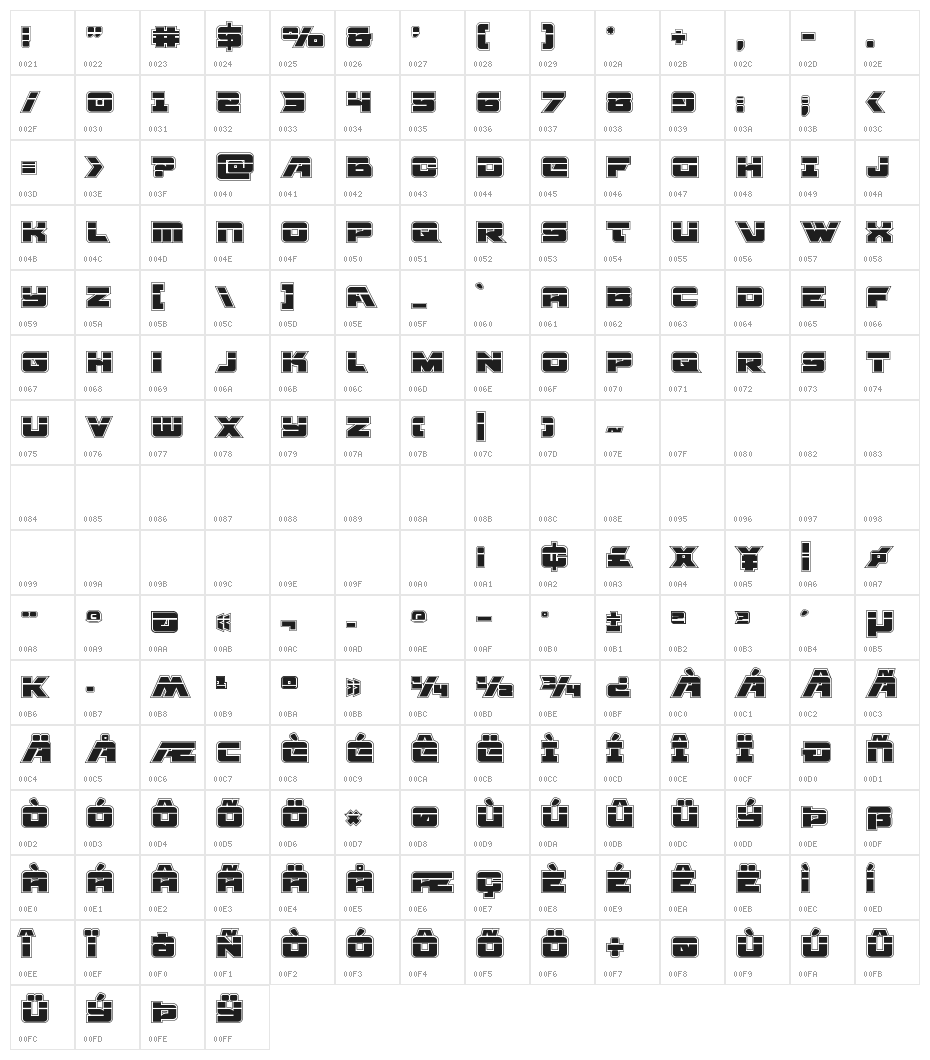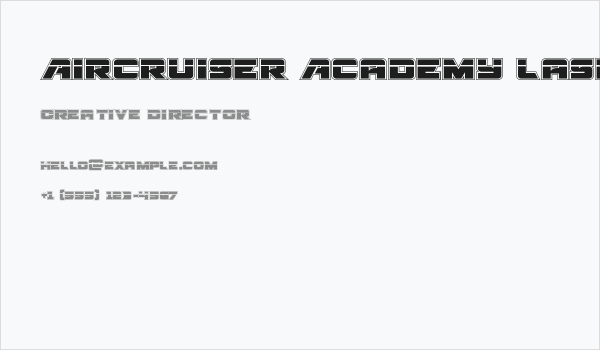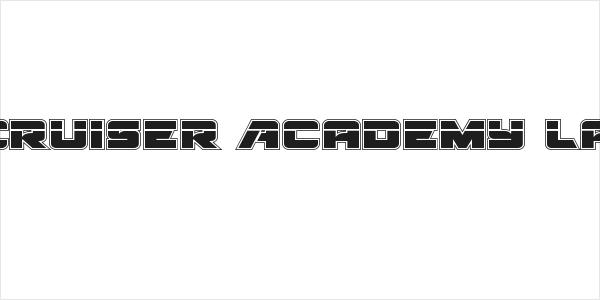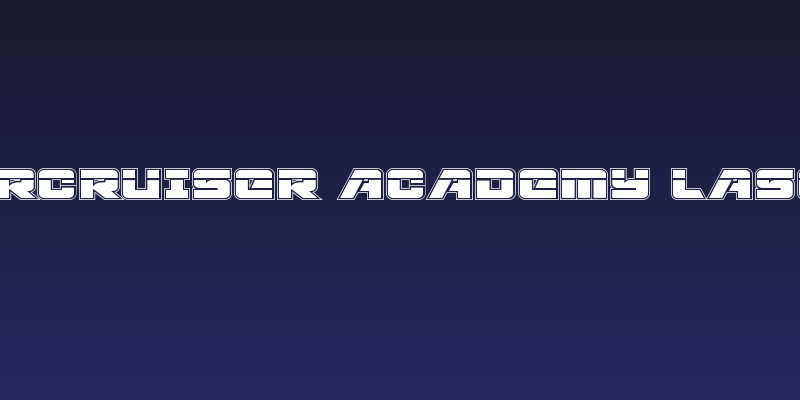
Aircruiser Academy Laser Font
Aircruiser Academy Laser Description
This font features a bold and futuristic design with a strong geometric structure. The characters are constructed with sharp angles and clean lines, giving it a modern and tech-inspired appearance. The uppercase letters are particularly striking, with a blocky and robust form that commands attention. The lowercase letters maintain the same angular style, ensuring consistency across the typeface. The numerals are equally bold, making them ideal for impactful displays. The special characters are designed to match the overall aesthetic, providing a cohesive look. This font is perfect for projects that require a modern and dynamic feel.
| Proposed Projects | Ideal for technology branding, sci-fi posters, video game titles, and modern advertising. |